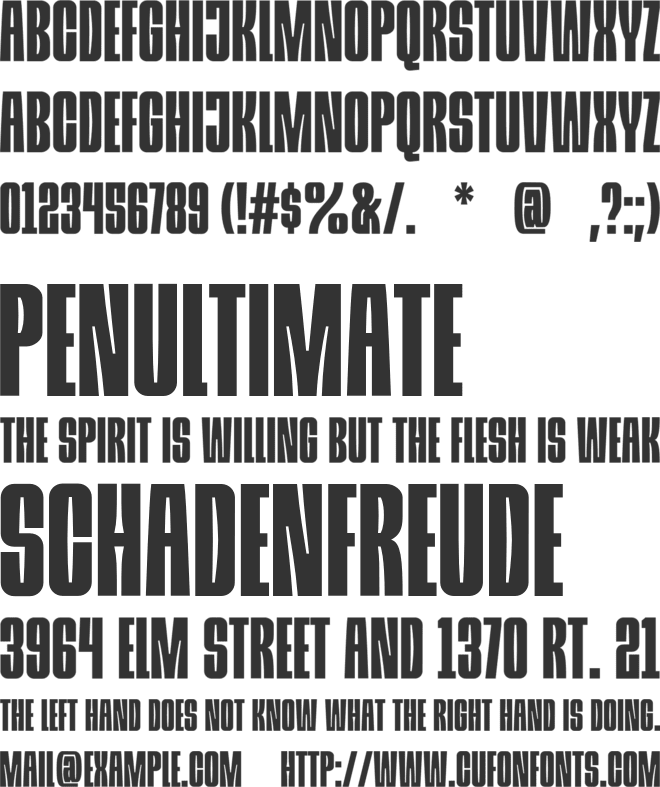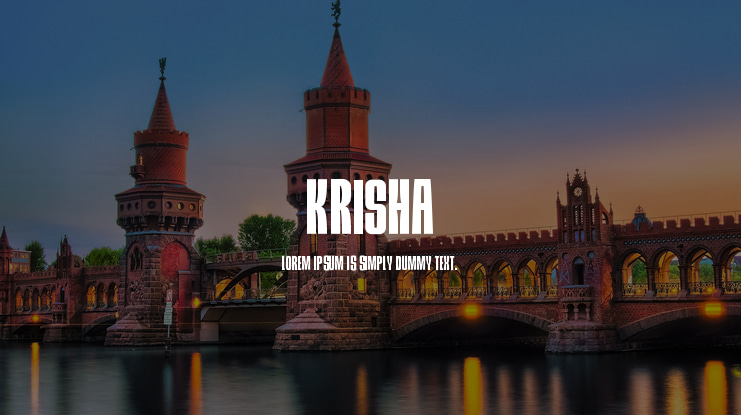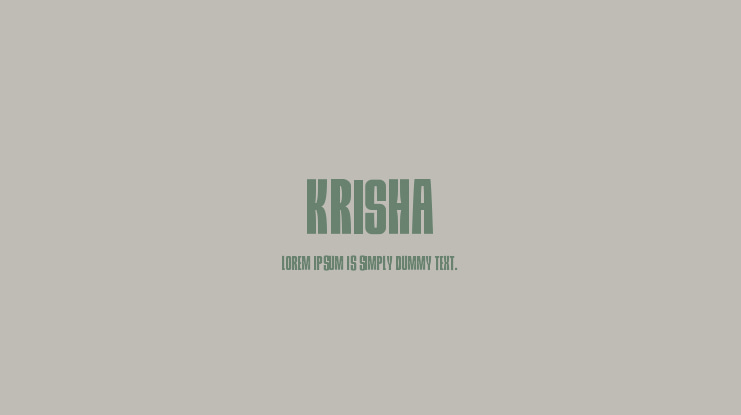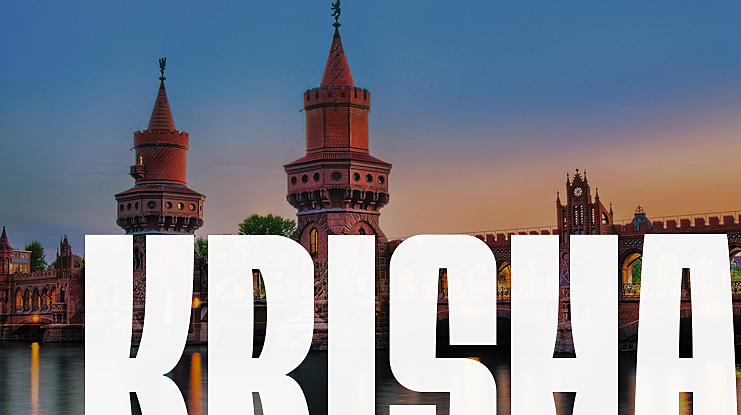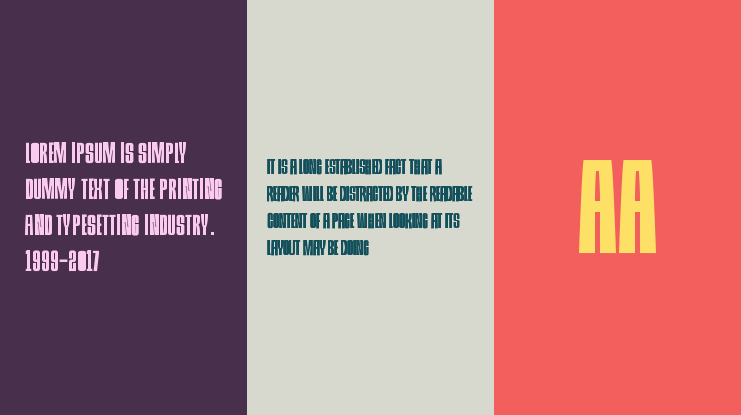
Krisha Font
Daler Mukhiddinov
Originally just a set of 8 characters I took some old lettering I made for practice and turned it into a one weight font. I wanted to create lettering with plenty of visual movement however contain it in a rigid form. If you use Krisha I would love to see what you do with it, send me a picture to .